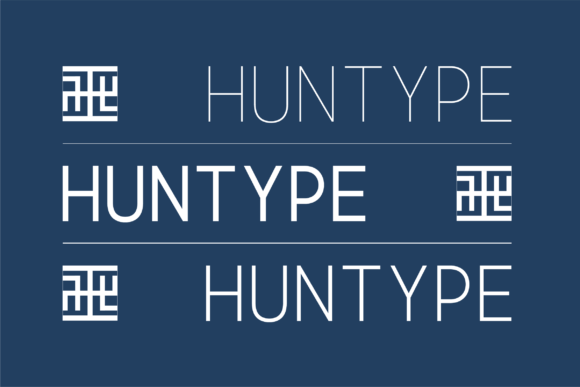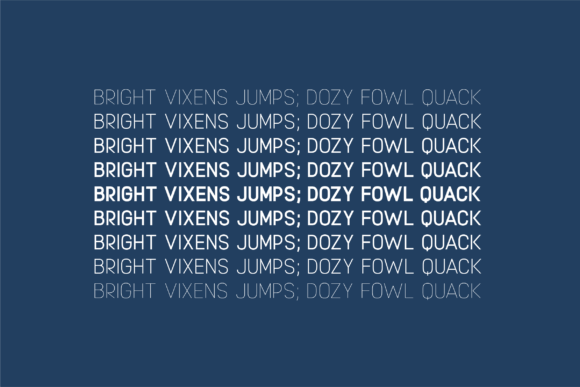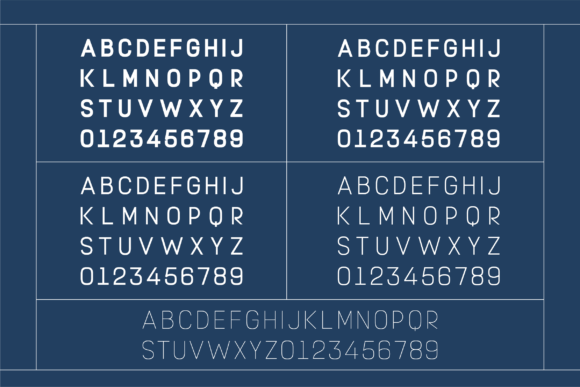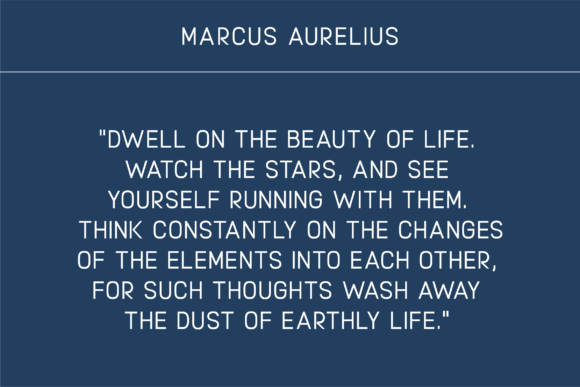
Introducing Coolture Font: Elevate Your Designs with Elegance and Versatility
In the world of typography, a font can make all the difference in the success of a design project. With the right font, you can convey your message with clarity, style, and sophistication. This is where Coolture Font comes in – a meticulously crafted font family that epitomizes elegance, modernity, and versatility. In this article, we’ll explore the features and benefits of Coolture Font, and why it’s the perfect choice for designers and content creators.
A Font Family with Endless Possibilities
Coolture Font is a comprehensive font family that consists of five distinct weights: thin, light, regular, black, and bold. This range of weights offers a wide range of creative possibilities, making it suitable for various design applications. Whether you’re aiming for a subtle and delicate touch or a bold and impactful statement, Coolture Font has got you covered.
Elegance and Sophistication
Coolture Font is designed to exude elegance and sophistication. Its clean lines, precise curves, and balanced proportions make it perfect for projects that require a touch of refinement. The font’s modern design ensures that it stays ahead of the curve, making it ideal for contemporary brands and designs.
One of the standout features of Coolture Font is its versatility. The font family can be used for a wide range of design applications, including:
- Branding and logos: Create a lasting impression with Coolture Font’s elegant and sophisticated design.
- Headings and titles: Use Coolture Font to add a touch of modernity and style to your headings and titles.
- Body text: The font’s clear and readable design makes it perfect for body text, ensuring that your message is conveyed with clarity.
- Advertising and marketing materials: Coolture Font’s bold and impactful design makes it ideal for advertising and marketing materials.
Why Choose Coolture Font?
With so many fonts available, why choose Coolture Font? Here are just a few reasons:
- Unique design: Coolture Font’s modern design sets it apart from other fonts, ensuring that your designs stand out.
- High-quality: The font is meticulously crafted to ensure that it meets the highest standards of quality.
- Flexible: With five distinct weights, Coolture Font offers a range of creative possibilities.
- Easily readable: The font’s clear and balanced design ensures that it’s easily readable, even at small sizes.
Tips for Using Coolture Font
To get the most out of Coolture Font, here are a few tips:
- Experiment with weights: Try out different weights to find the perfect balance for your design.
- Pair with other fonts: Coolture Font pairs well with other fonts, so don’t be afraid to experiment with different combinations.
- Use for headlines and titles: Coolture Font’s bold and modern design makes it perfect for headlines and titles.
In conclusion, Coolture Font is a versatile and elegant font family that offers a wide range of creative possibilities. With its five distinct weights, modern design, and high-quality craftsmanship, it’s the perfect choice for designers and content creators. Whether you’re aiming for a subtle and delicate touch or a bold and impactful statement, Coolture Font is sure to elevate your designs with distinction.